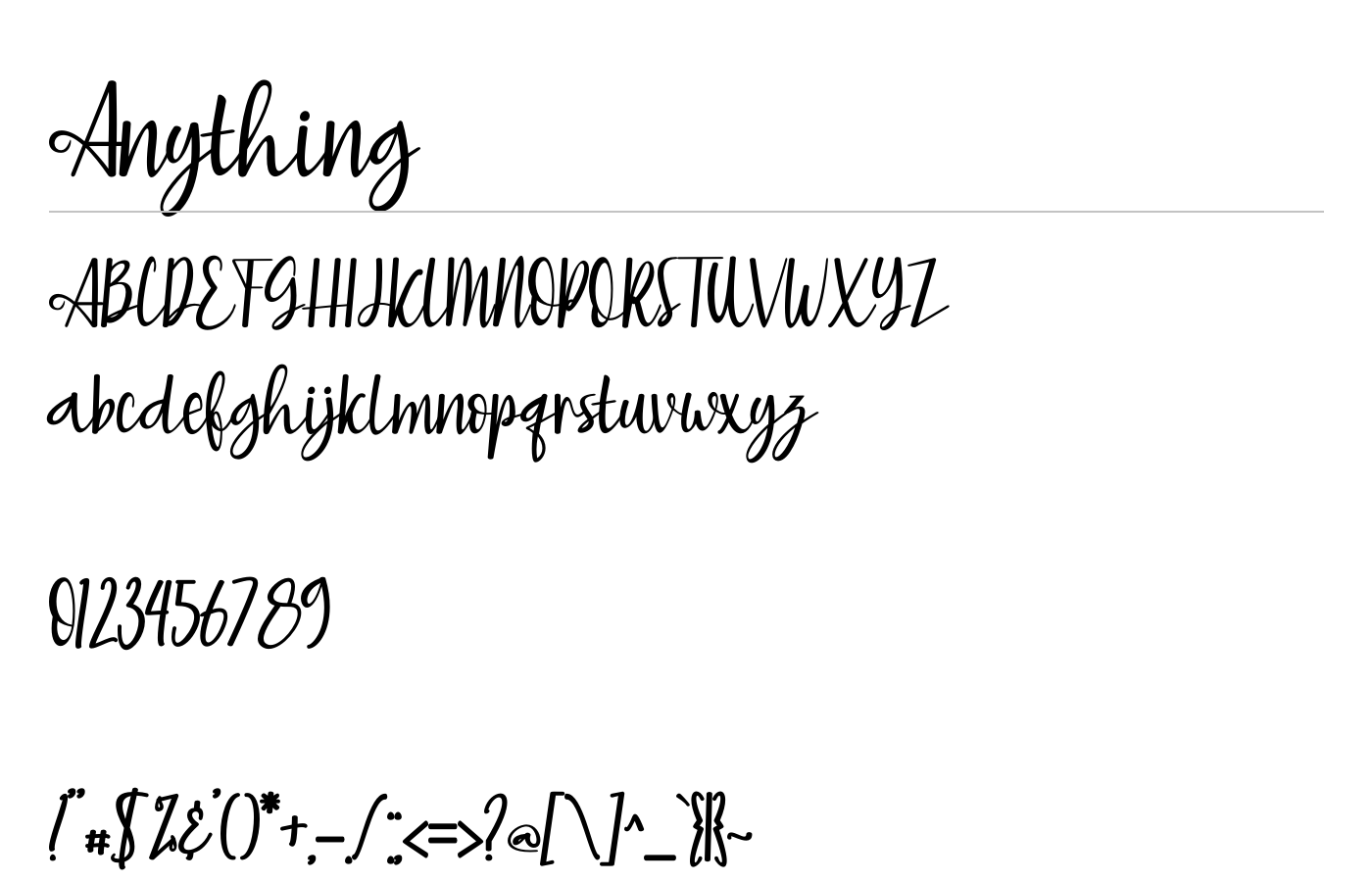
Anything Font is a lively and elegant script typeface with a casual, hand-lettered feel. It features smooth, flowing strokes with moderate contrast and playful, varied letterforms, making it perfect for creative and personal branding, invitations, or social media headlines where a friendly and approachable style is desired.
Anything Font